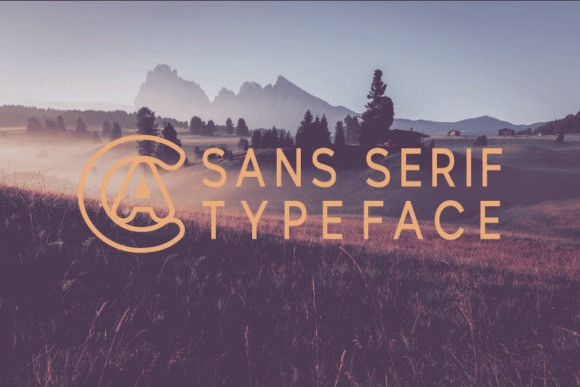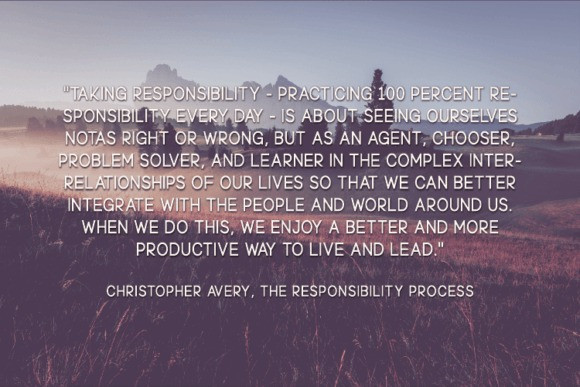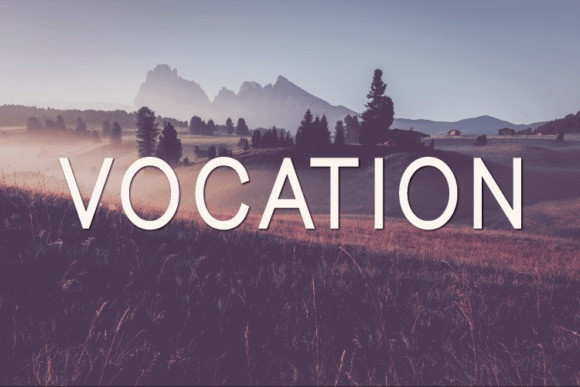
Vocation Font
Vocation Font , a modern, classy sans serif typeface. An extremely versatile font perfect for logos, weddings, invitations, quotes, advertisements, print, magazines, and more!